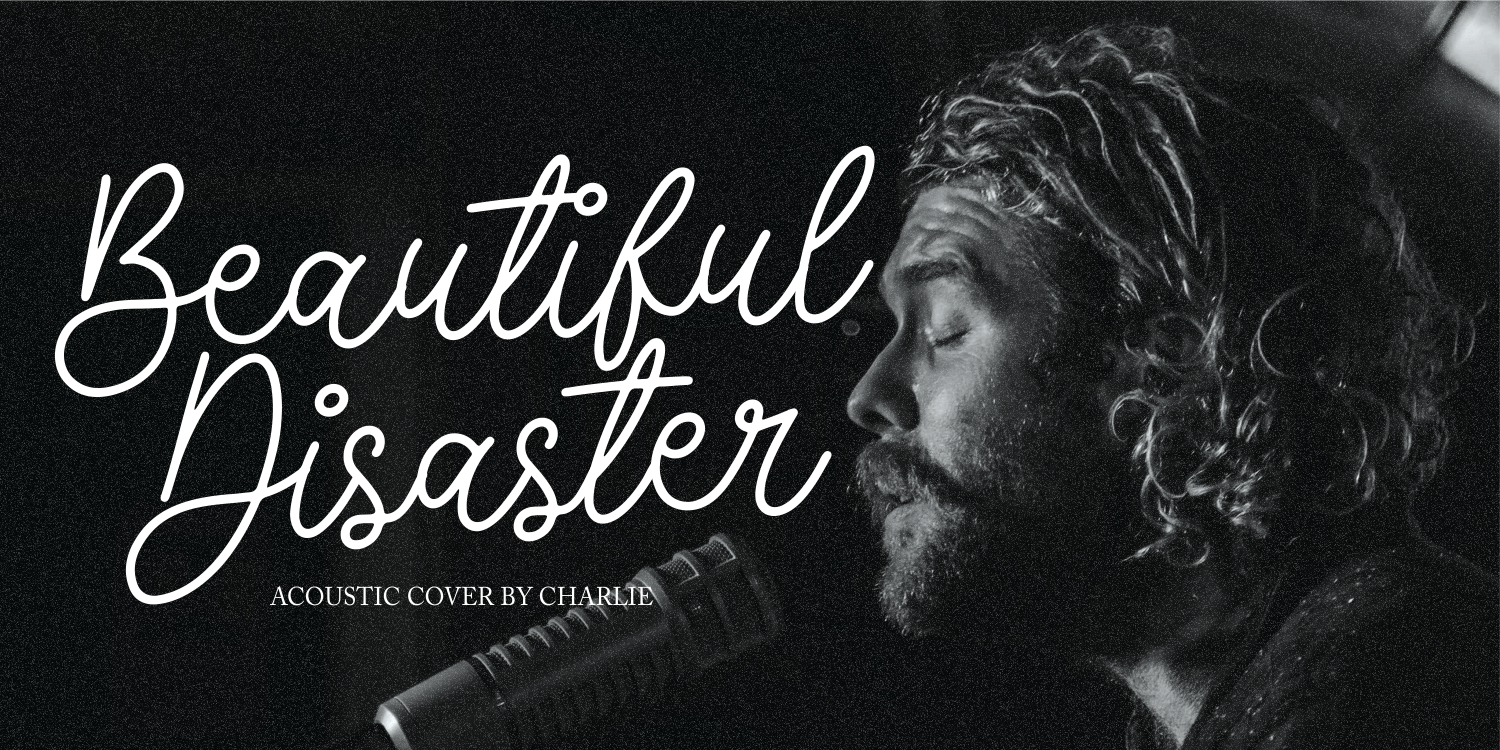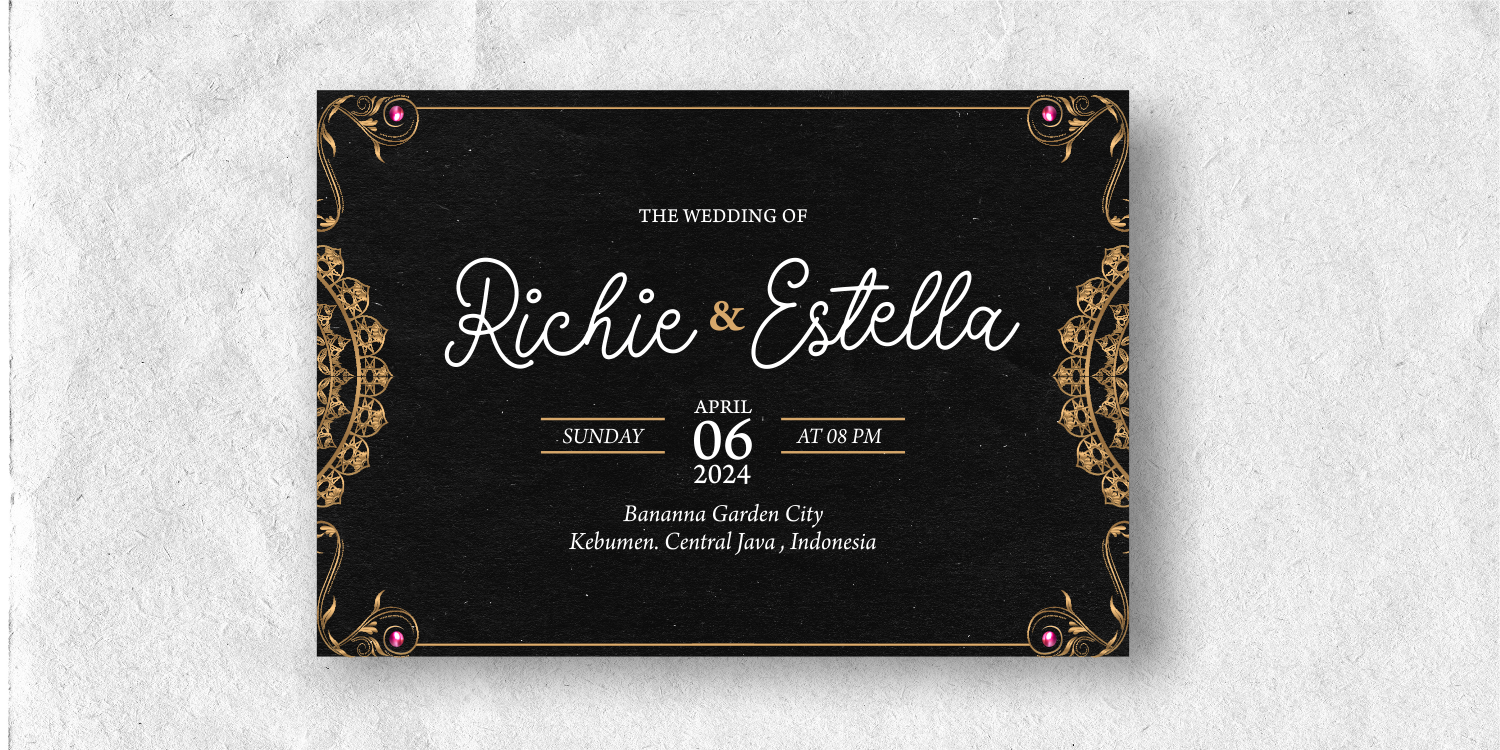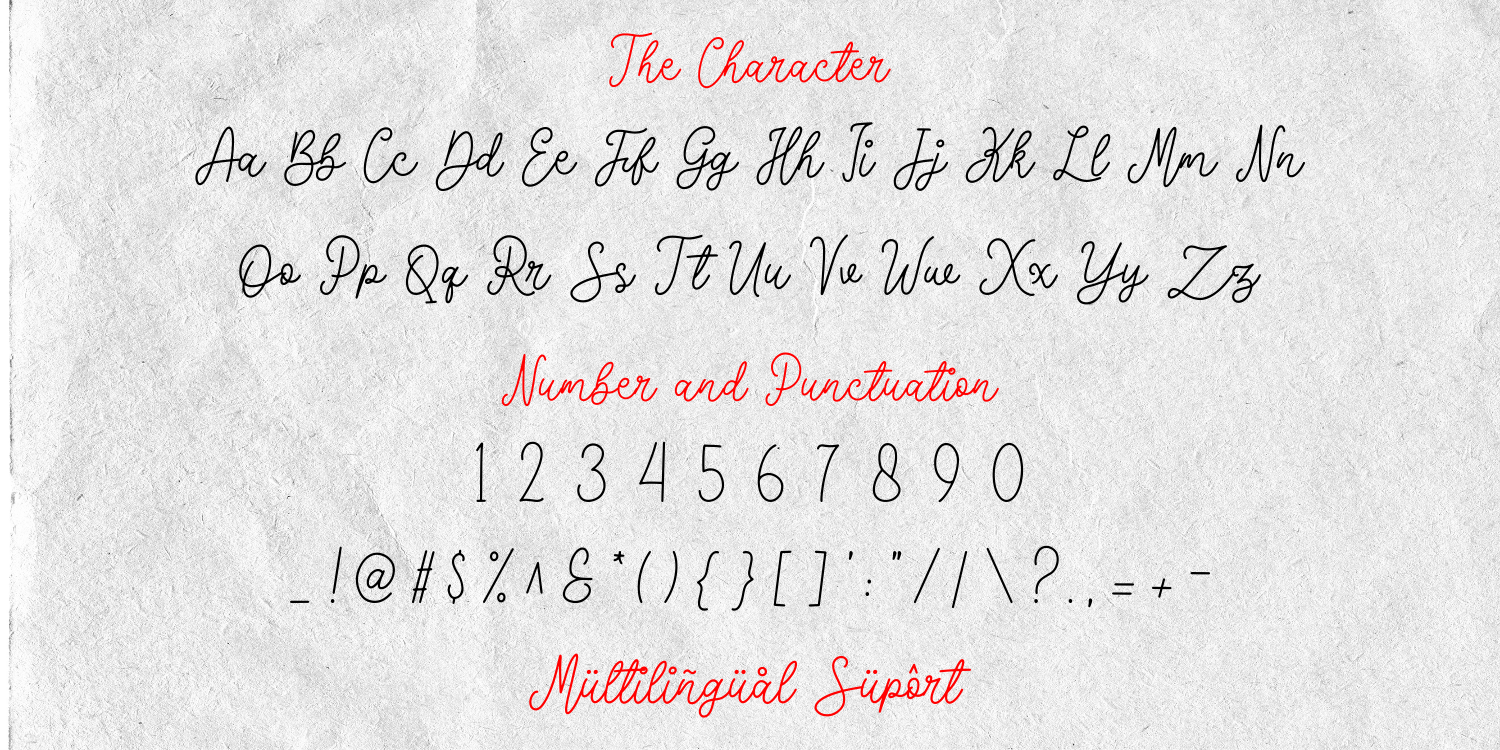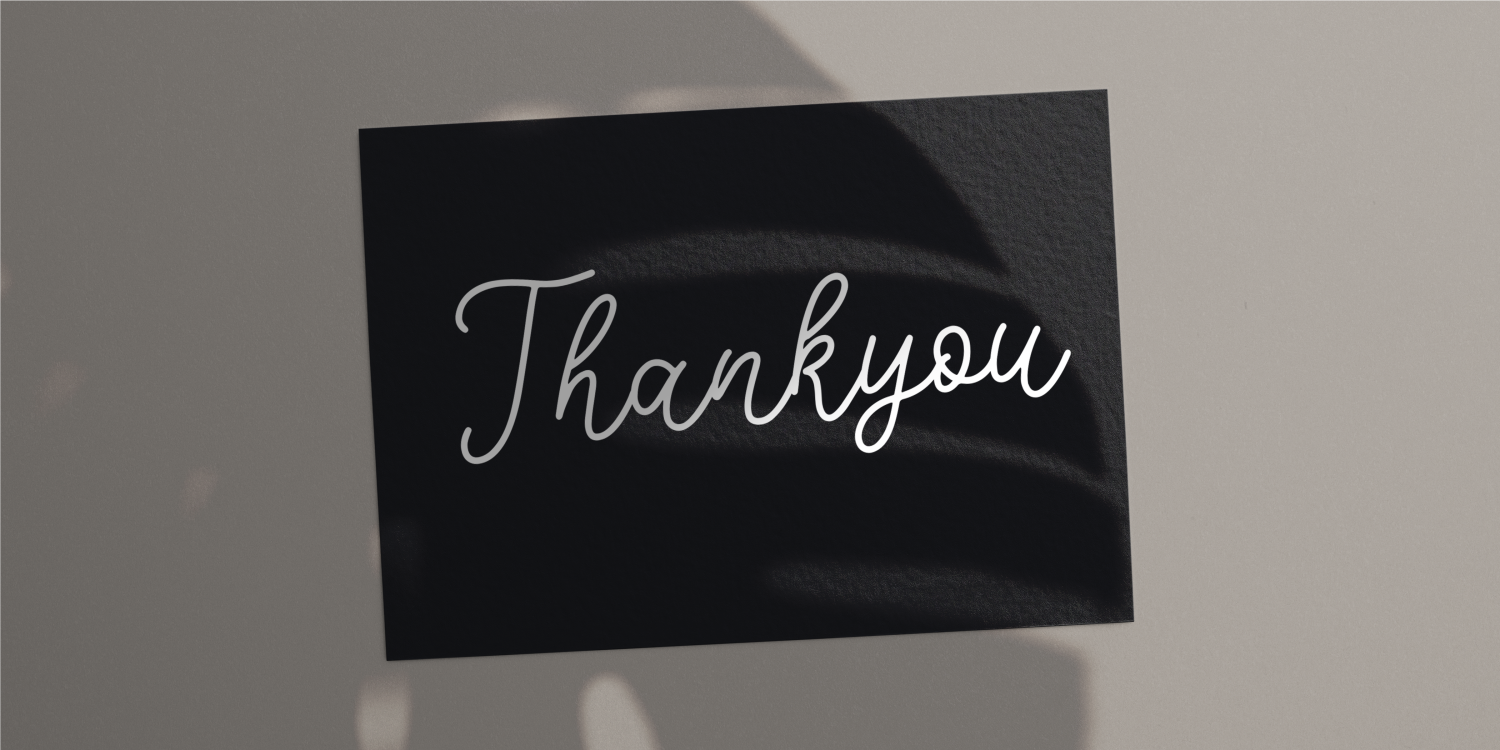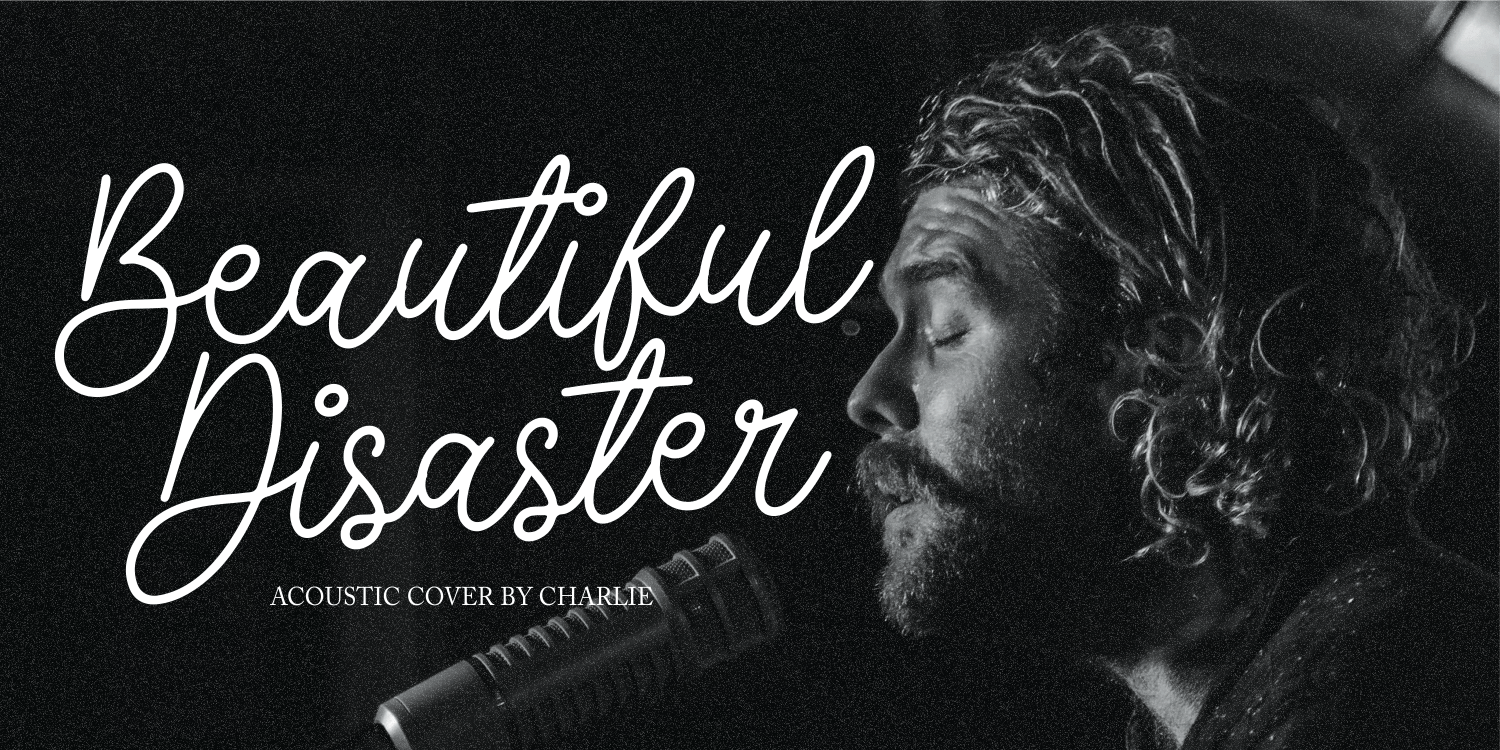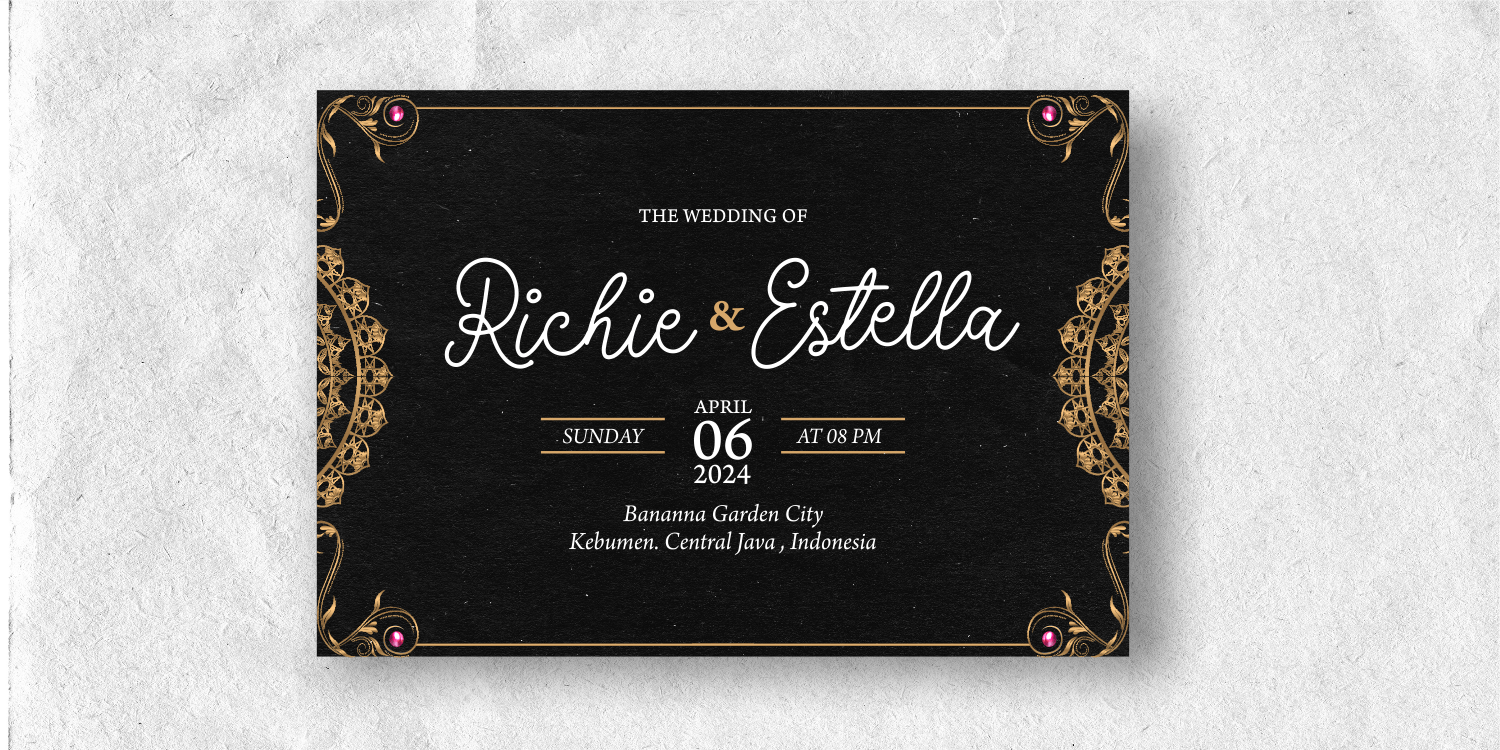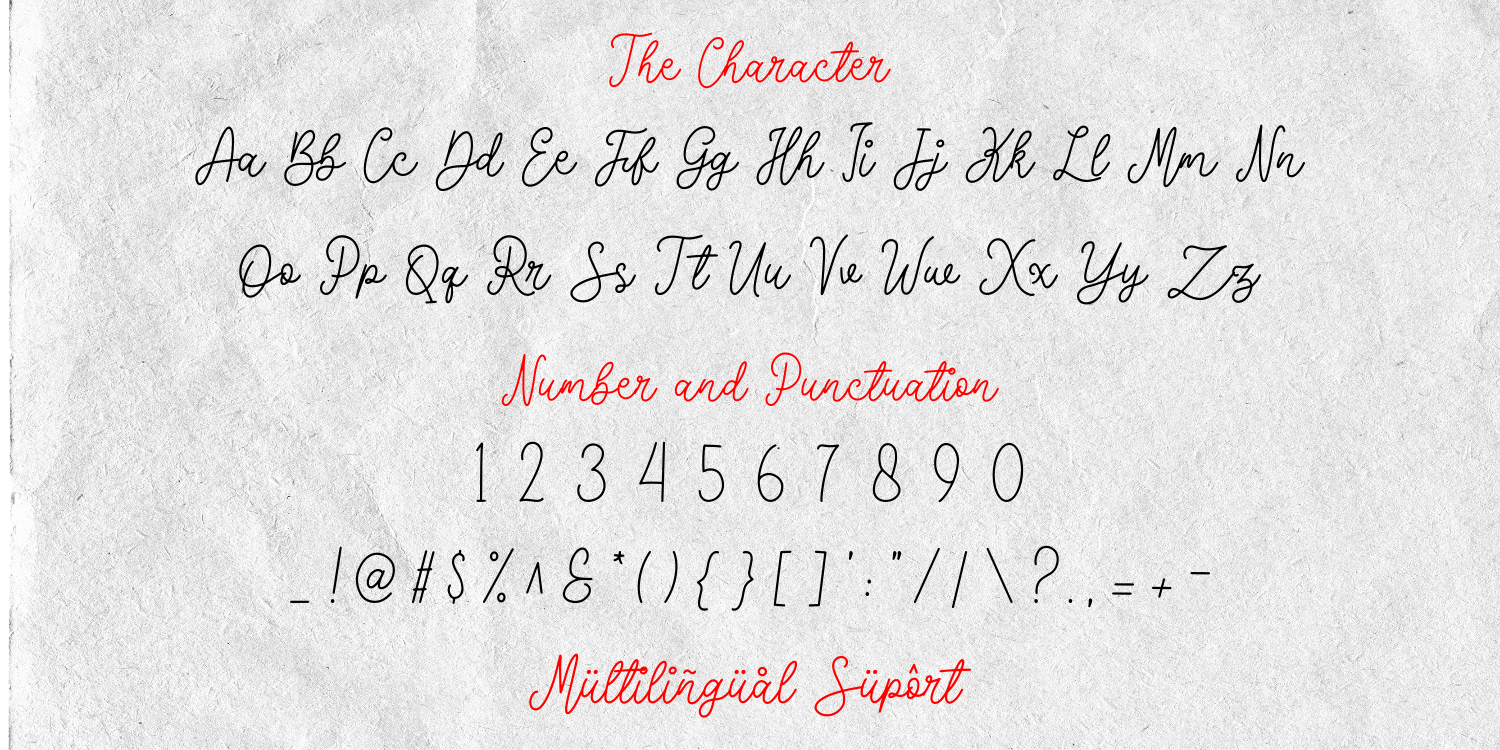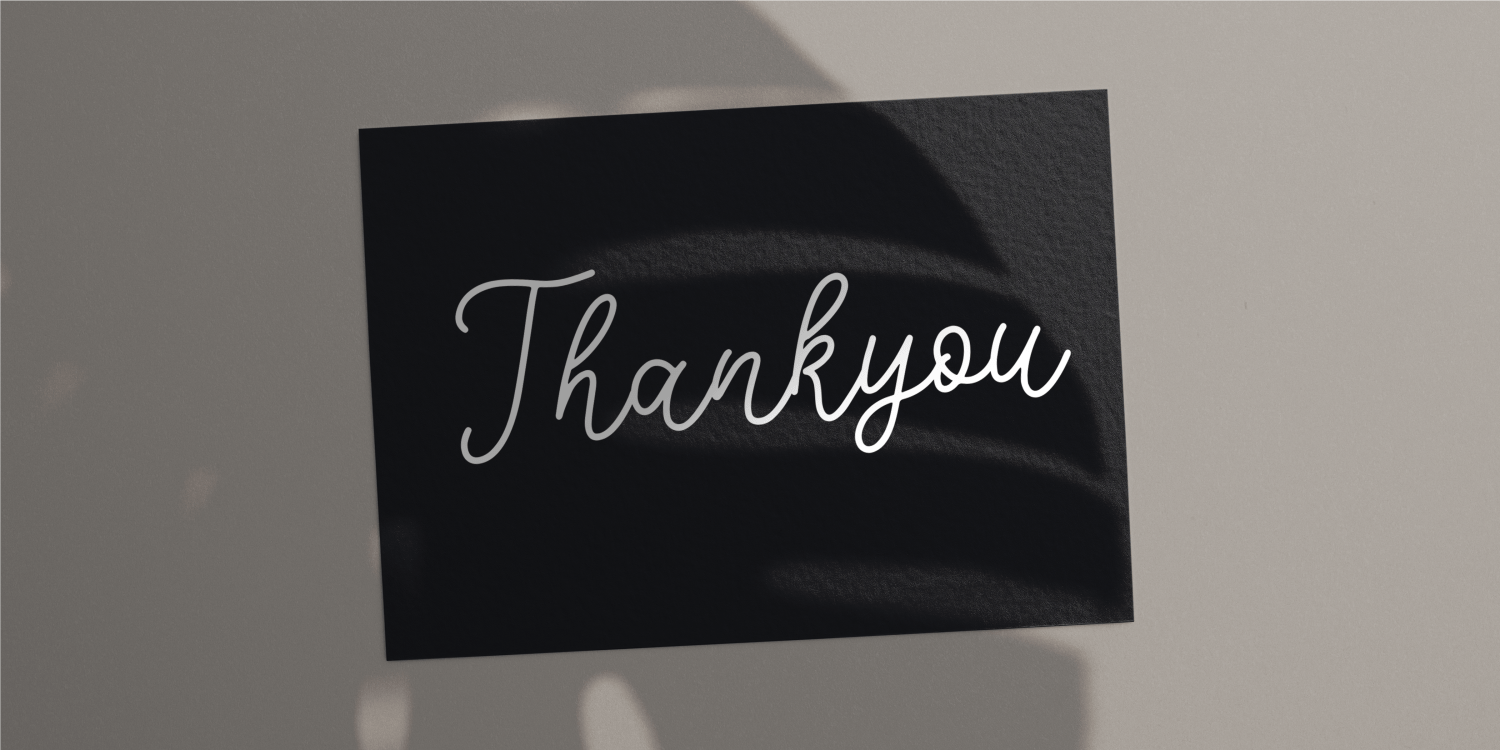
Dona Freddie Font
Dona Freddie Handwritten Font is a fancy and elegant handcrafted font that create to impress your audience and make your branding shine.
Make your projects dance with this elegant and wonderful font wherever you use it. Use it for your headings, logos, ads, printed quotes, packaging, and even your website or social media branding.